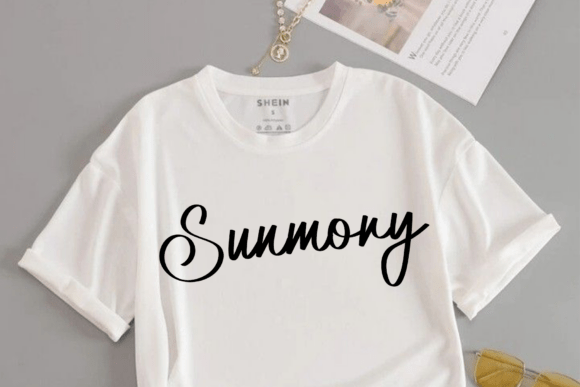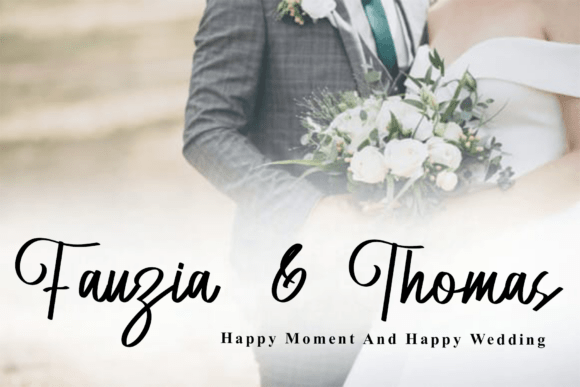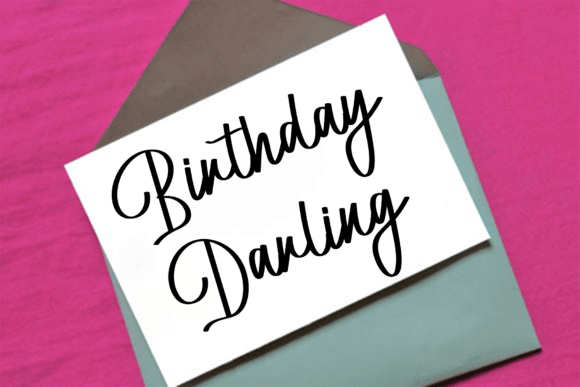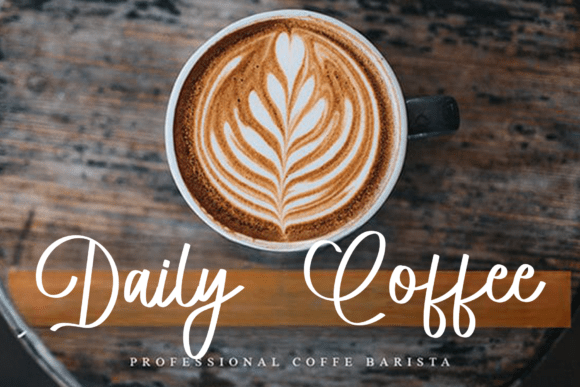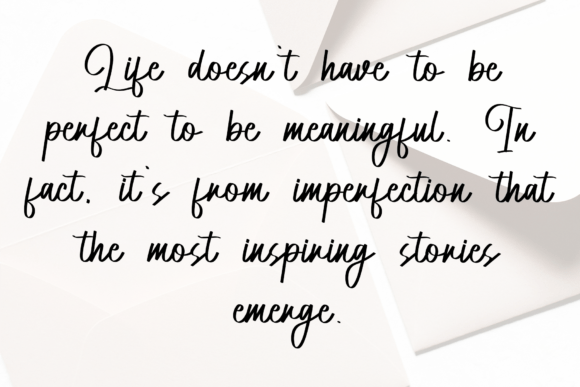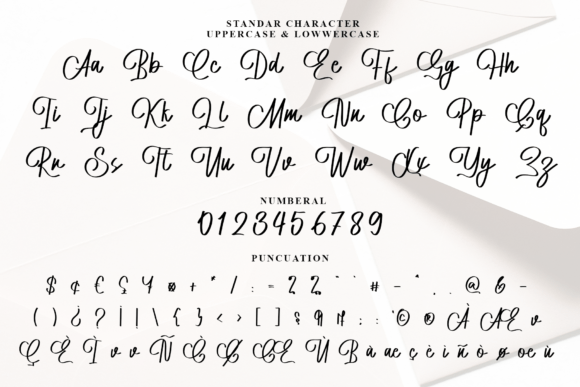
Envelope Font: The Perfect Blend of Elegance and Personal Touch
Are you looking for a font that can add a touch of warmth and intimacy to your designs? Look no further than the Envelope Font. This beautiful, modern script typeface effortlessly blends elegance with a personal, handwritten feel, making it perfect for conveying emotions and creating a lasting impression.
What is Envelope Font?
Envelope Font is a modern script typeface that is designed to mimic the look and feel of handwritten letters. It is characterized by its flowing lines, elegant curves, and personal touch. The font is perfect for a variety of design projects, including wedding invitations, greeting cards, and branding materials.
Key Features of Envelope Font
- Unique and Elegant Design: Envelope Font has a unique and elegant design that sets it apart from other fonts. Its flowing lines and curves give it a sophisticated look that is perfect for high-end designs.
- Personal and Handwritten Feel: The font has a personal and handwritten feel that makes it perfect for conveying warmth and intimacy. It’s ideal for designs that require a touch of personality and emotion.
- Highly Legible: Despite its elegant design, Envelope Font is highly legible, even at small sizes. This makes it perfect for use in a variety of design projects, from business cards to billboards.
- Versatile: Envelope Font is a versatile font that can be used in a variety of design projects, from print materials to digital designs.
Uses of Envelope Font
Envelope Font is a versatile font that can be used in a variety of design projects. Here are some of the most popular uses of the font:
- Wedding Invitations: Envelope Font is perfect for wedding invitations, as it adds a touch of elegance and romance to the design.
- Greeting Cards: The font is also ideal for greeting cards, as it conveys warmth and intimacy.
- Branding Materials: Envelope Font can be used in branding materials, such as logos, business cards, and letterheads, to add a touch of personality and elegance.
- Digital Designs: The font can also be used in digital designs, such as social media graphics, email newsletters, and website headers.
Tips for Using Envelope Font
Here are some tips for using Envelope Font in your designs:
- Use it Sparingly: Envelope Font is a elegant and sophisticated font, so it’s best to use it sparingly. Use it for headings or titles, and a simpler font for body text.
- Pair it with a Simpler Font: Pair Envelope Font with a simpler font to create contrast and make your design more visually appealing.
Envelope Font is a beautiful, modern script typeface that effortlessly blends elegance with a personal, handwritten feel. Its unique design, high legibility, and versatility make it perfect for a variety of design projects. Whether you’re designing wedding invitations, greeting cards, or branding materials, Envelope Font is a great choice. So why not give it a try and see how it can elevate your designs?